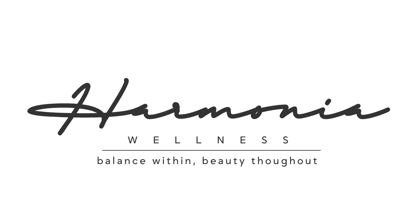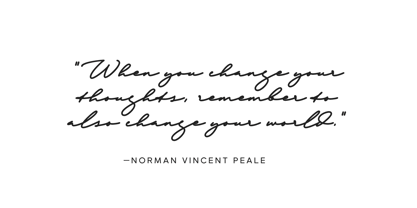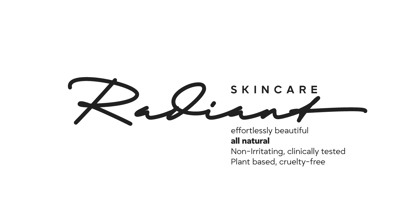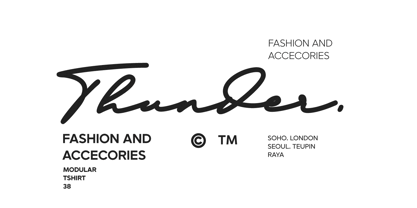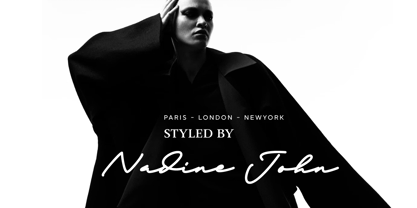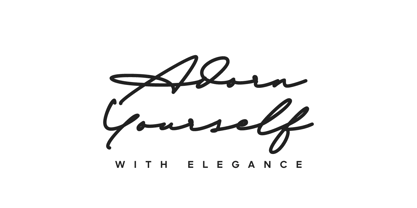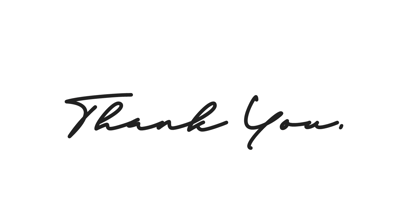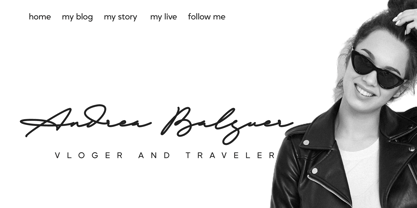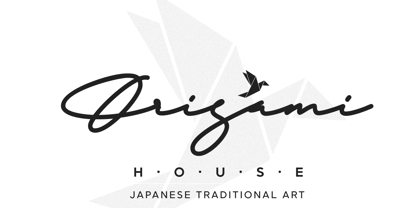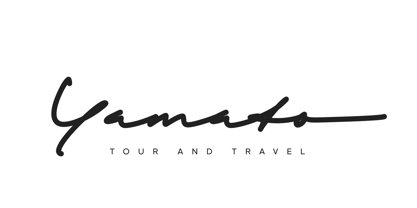
Canthing
Die Schriftfamilie Canthing wurde von Muhammad Ridha Agusni, Siti Saribanon Nurjannah entworfen und von Cititype veröffentlicht. Canthing enthält 1 Stile. Mehr über diese Familie
The "Canthing" font offers a natural, handwritten feel that is both casual and refined. Its smooth, monoline strokes bring a simple elegance, making it a great choice for modern branding. Whether you're working on logos, fashion labels, packaging, or social media graphics, this font adds a touch of effortless style and charm.
Versatile and flexible, "Canthing" beautifully elevates any text, giving it a personal and authentic feel. From personal branding to professional projects, it brings a warm, handwritten quality that is welcoming and sincere.
• Natural, handwritten script
• Perfect for logos, fashion, and social media
• Stylish yet understated, with an elegant touch
This font is a wonderful fit for any project looking to balance simplicity with a fashionable, handwritten aesthetic.